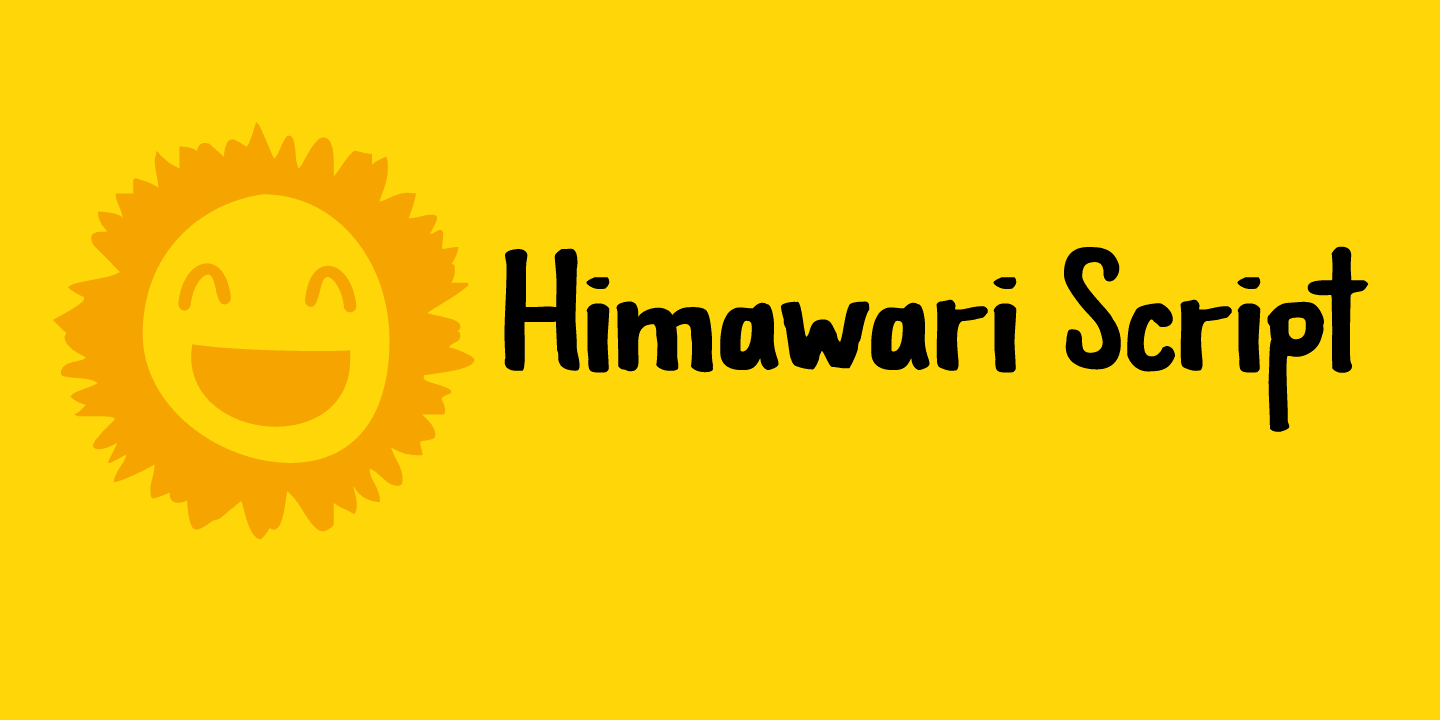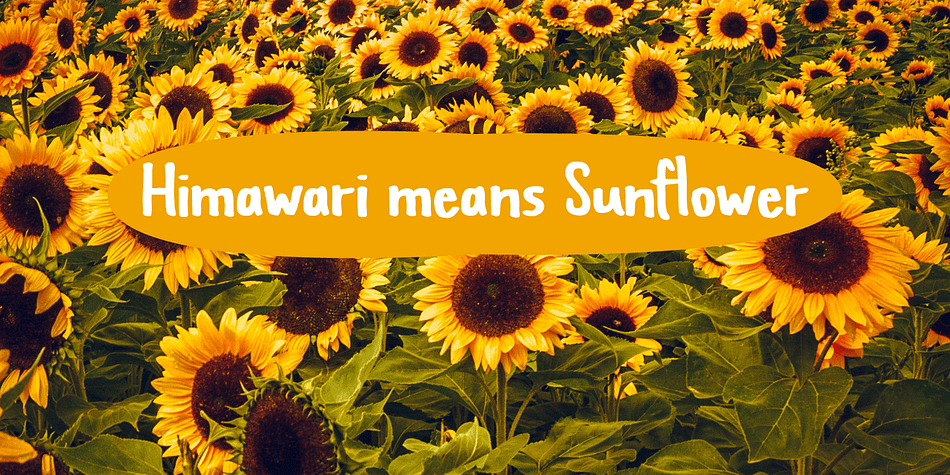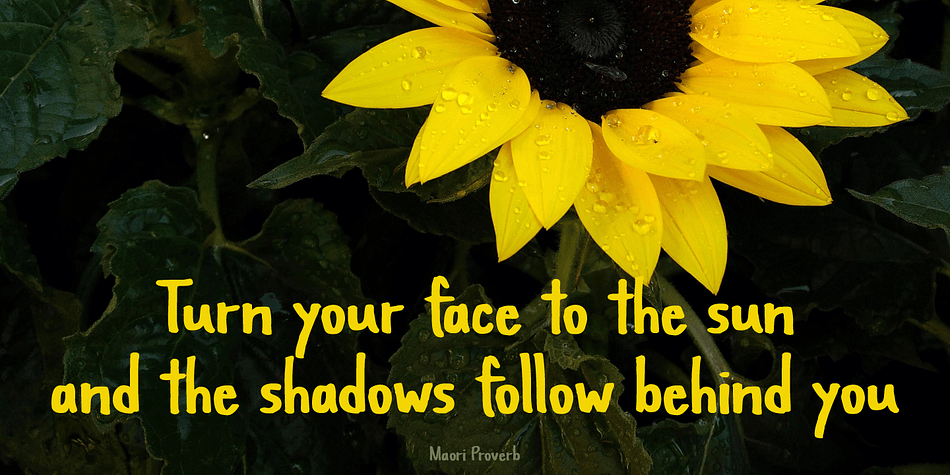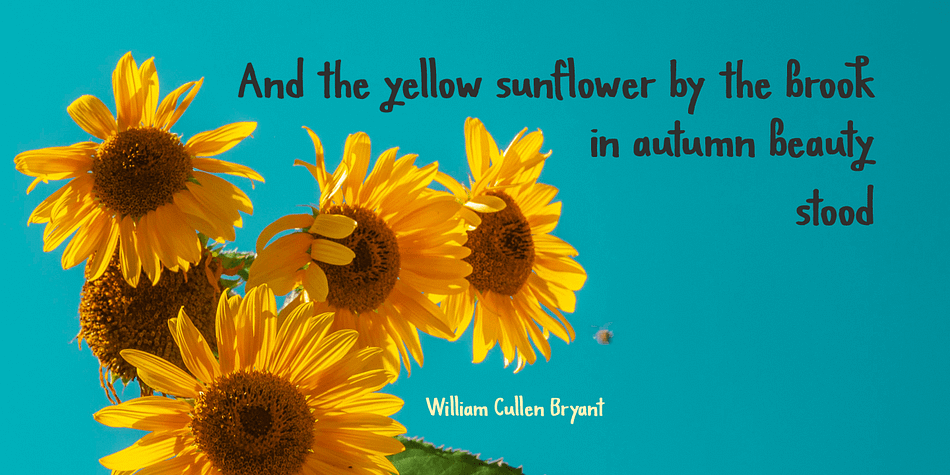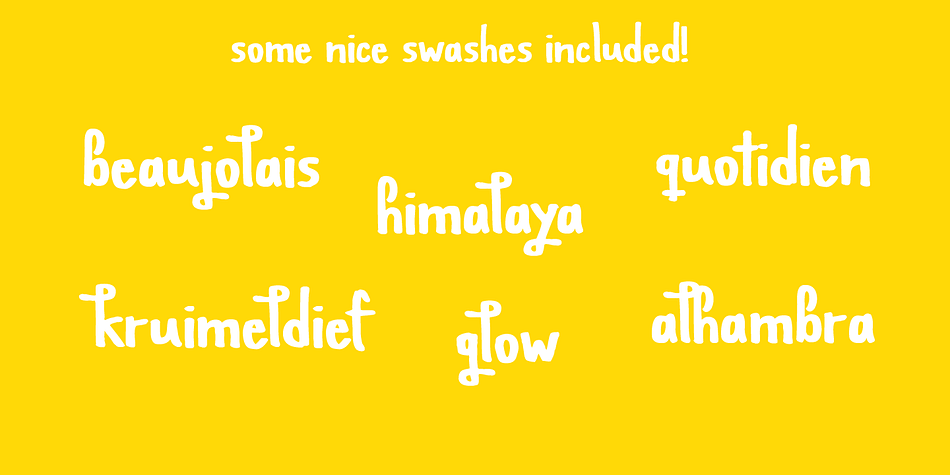
Designed by David Kerkhoff, Himawari Script is a hand display and script font family. This typeface has two styles and was published by Hanoded.
Himawari means ‘Sunflower’ in Japanese. It was raining while I worked on this font, so I needly something to cheer me up - like bright yellow sunflowers!
Himawari Script is a nice and neat handmade font, which was (more or less) inspired by an older font of mine, called Mama Bear and, like the font it was modeled on, was made with a bamboo pen and Chinese ink.
Himawari Script comes with some swashes and a cute smiling sunflower (just enable Stylistic Alternates and hit *).